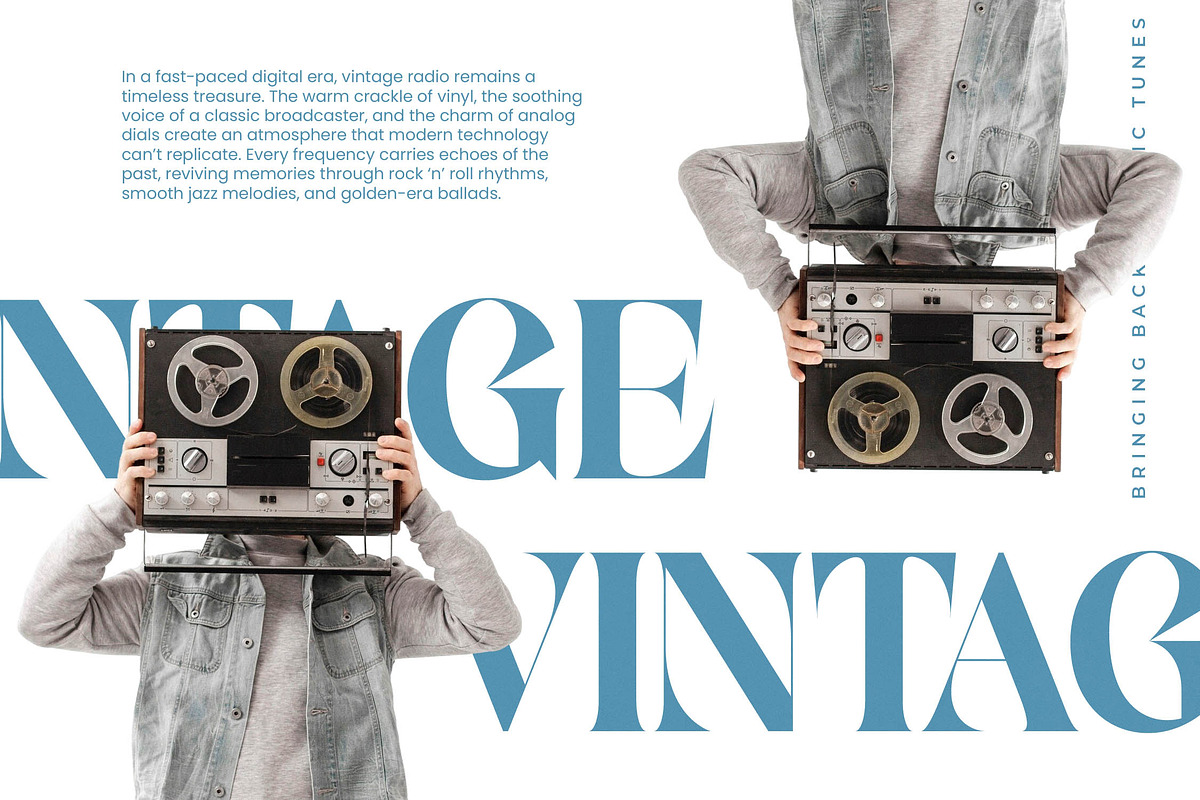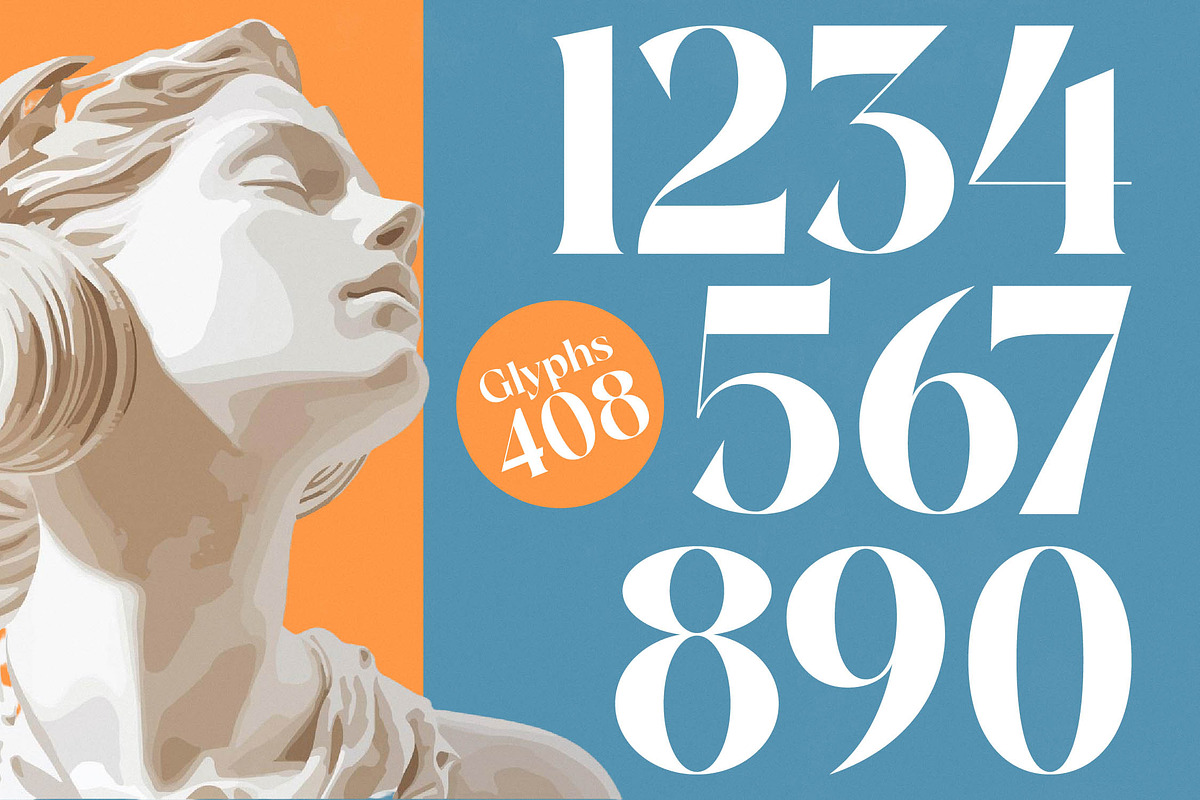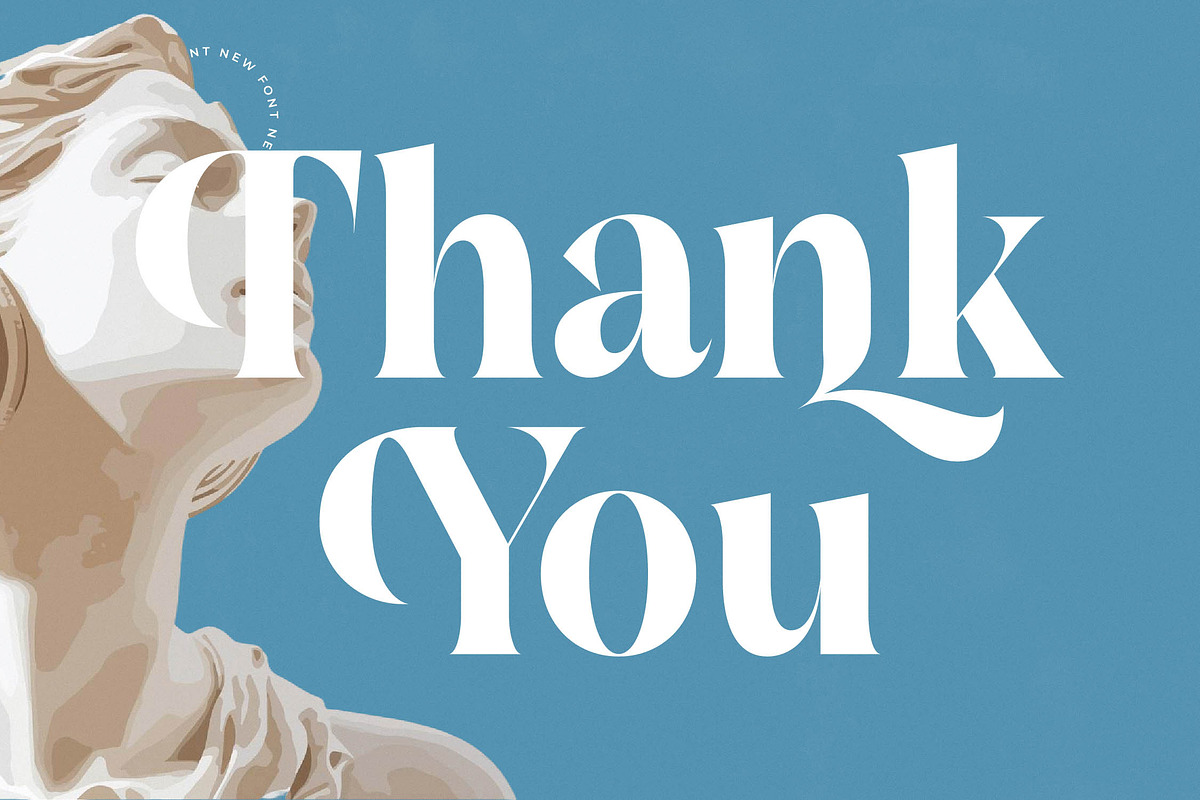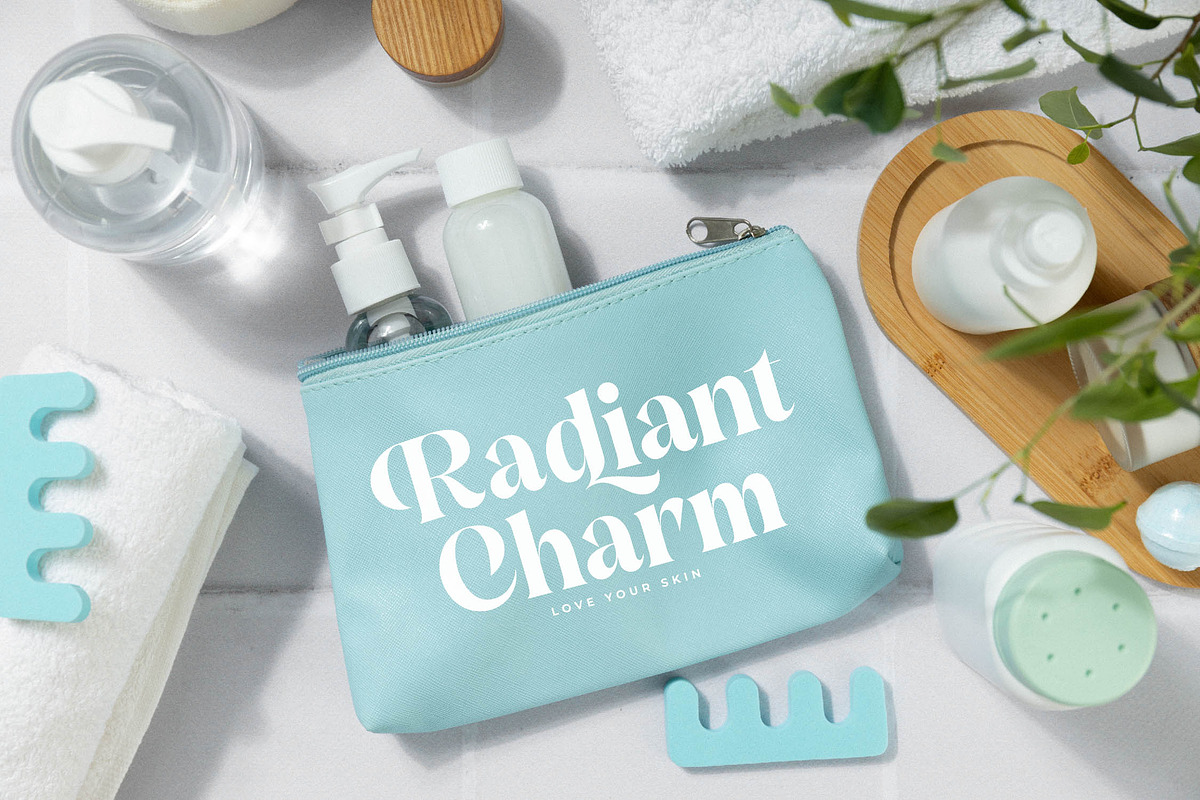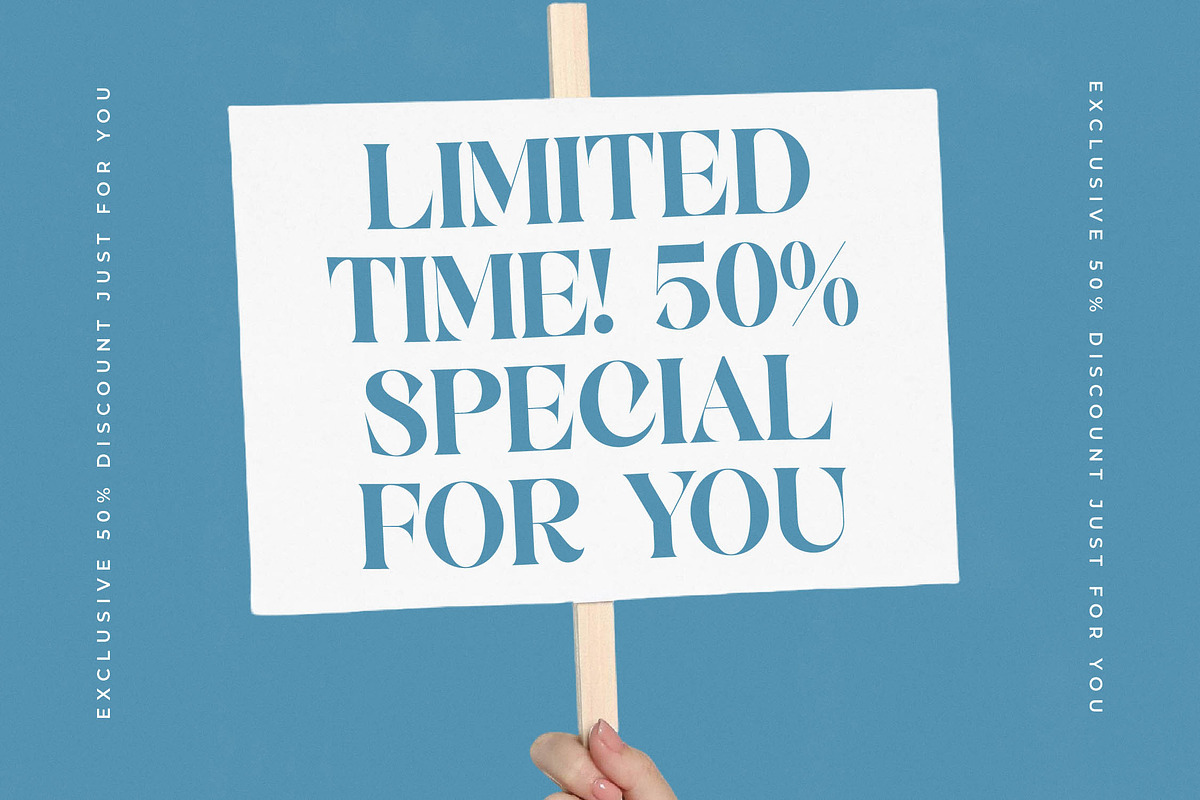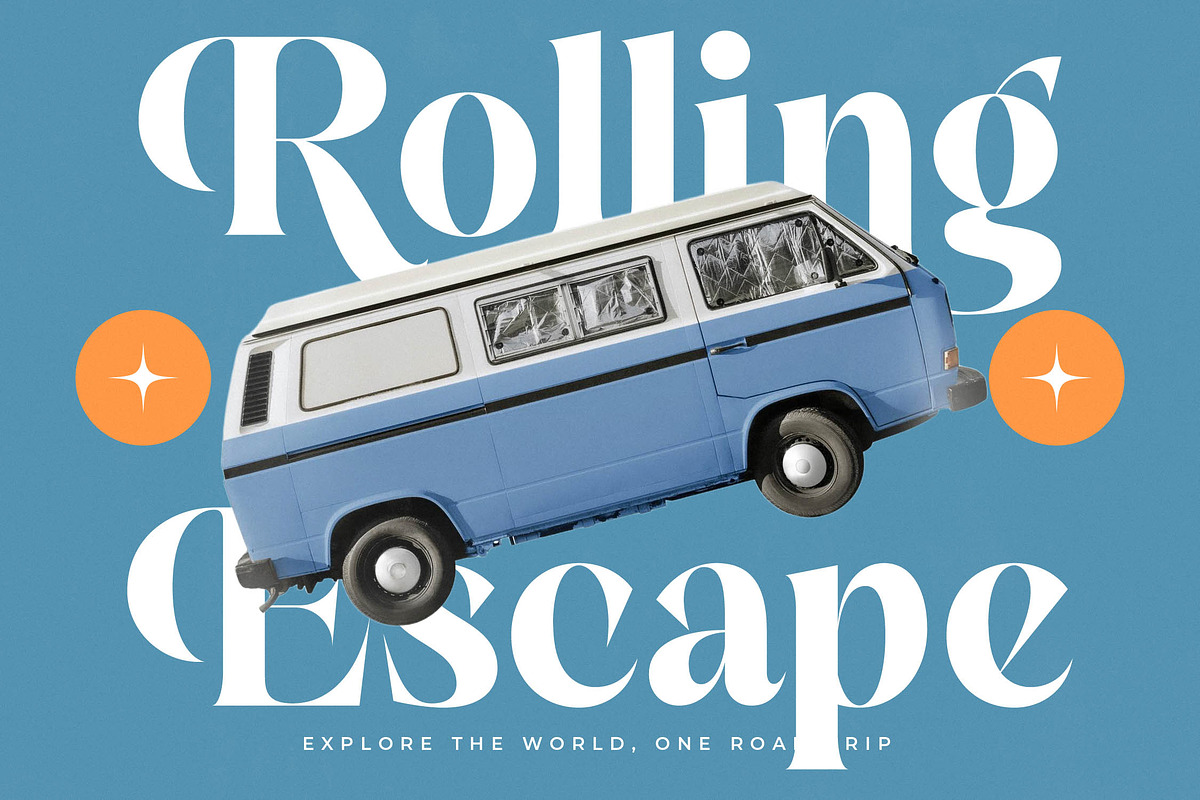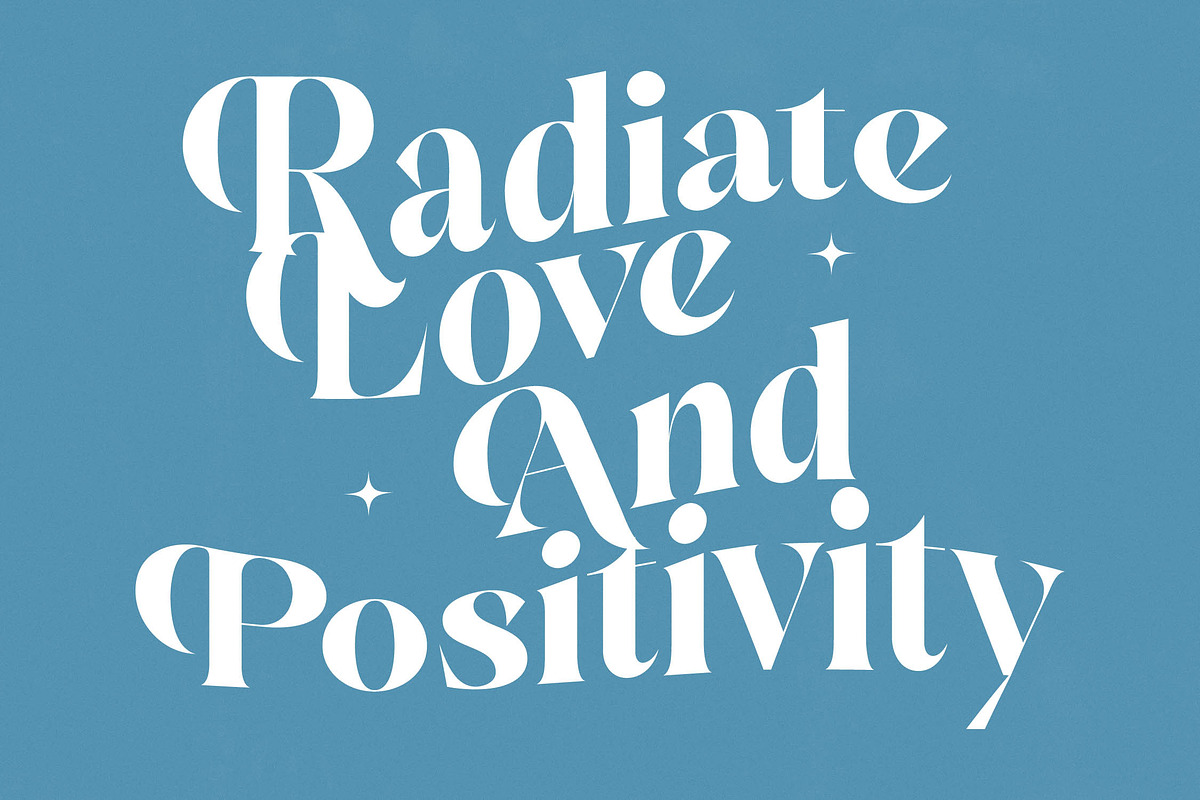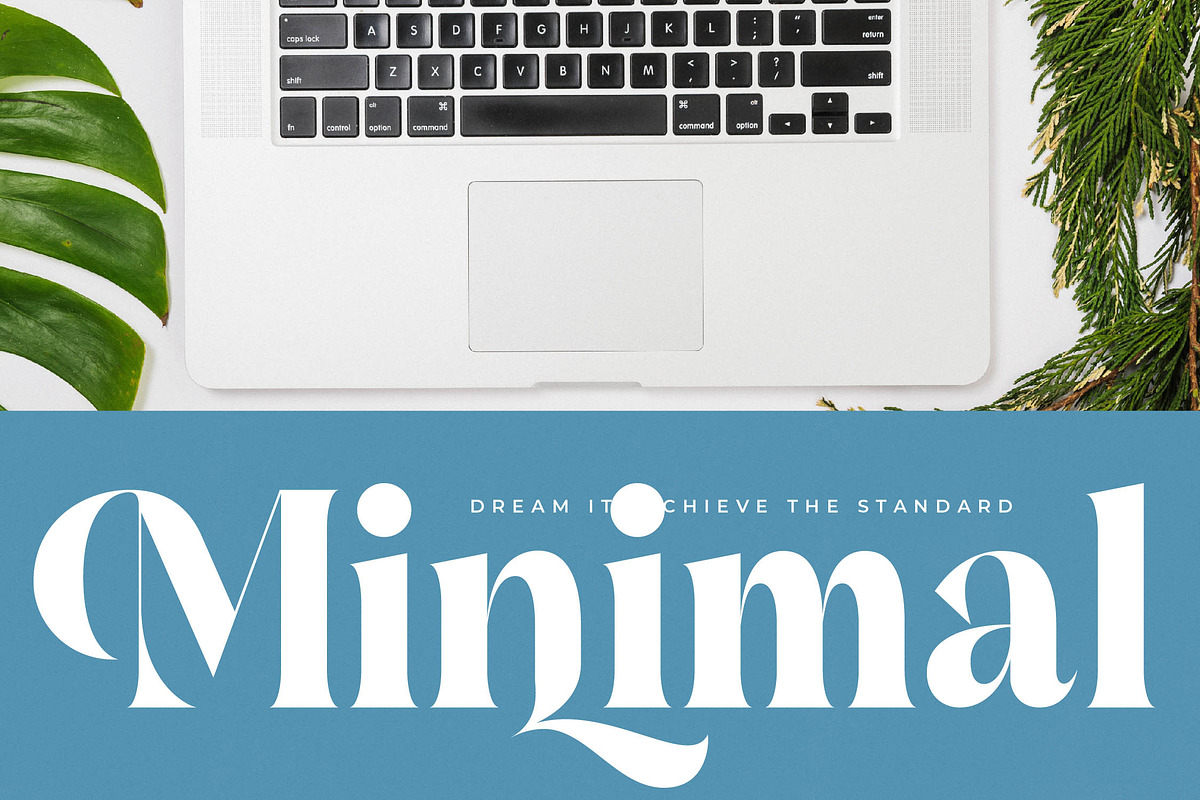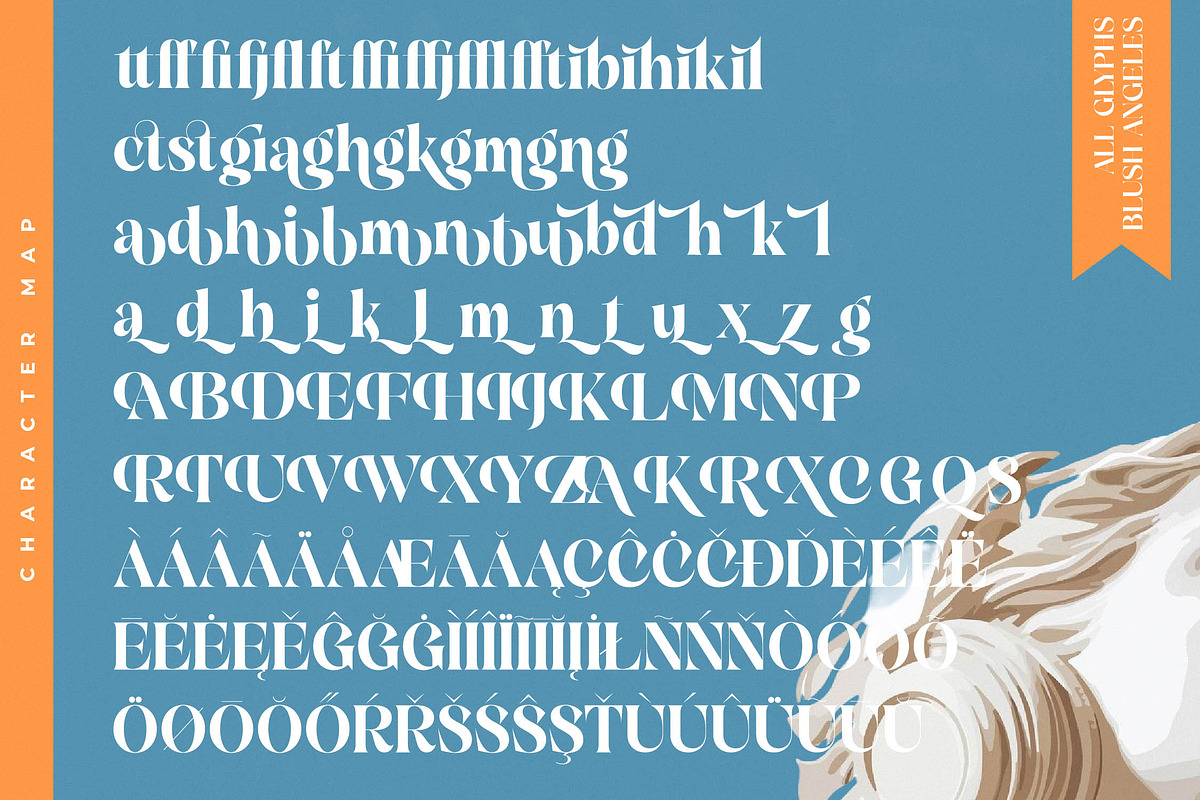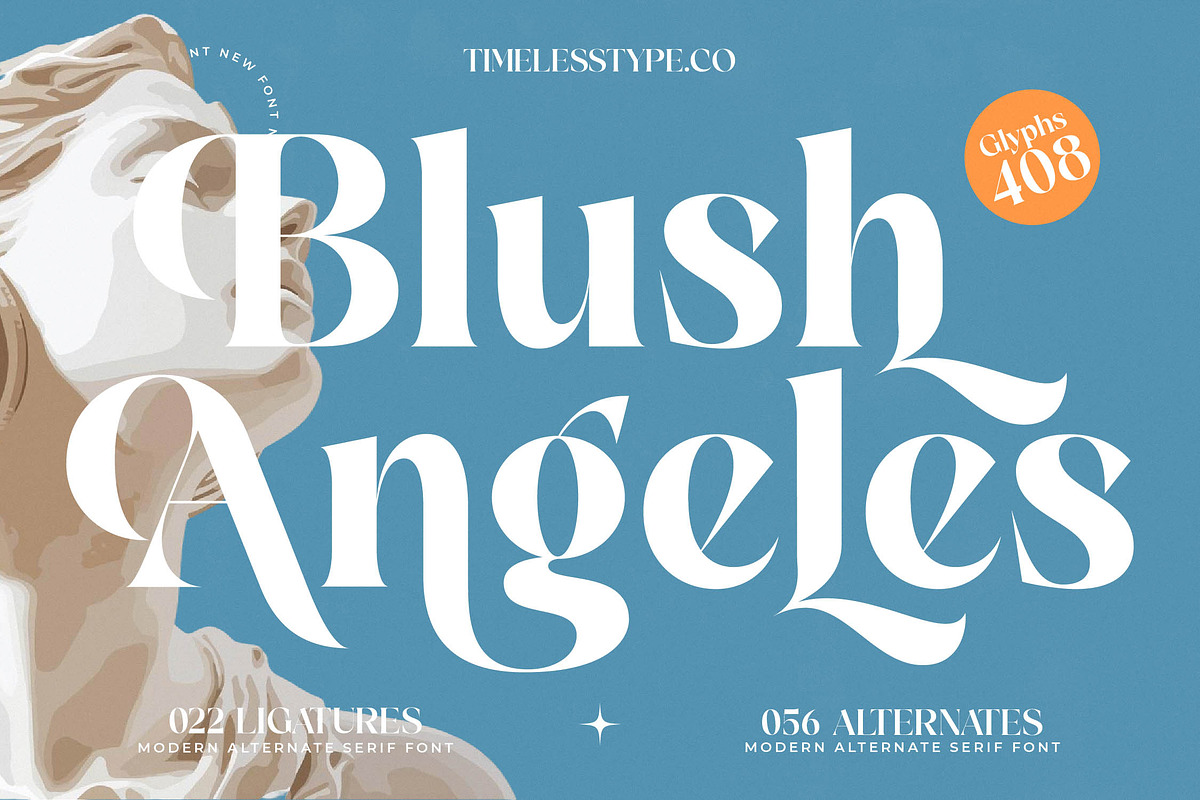
Blush Angeles Modern Serif Font
Elevate your creative vision with the ethereal beauty of Blush Angeles, a font designed to command attention with silent grace. This typeface strikes the perfect balance between classical proportions and contemporary flair, making it an essential tool for high-end design projects.
Drawing inspiration from the marble-carved elegance of neo-classical sculpture and the sun-drenched streets of Los Angeles, this font evokes a sense of timeless luxury. It captures a dreamlike atmosphere where old-world heritage meets the sharp, polished aesthetics of modern California fashion.
As a modern serif display, this typeface exudes a sophisticated confidence that is hard to ignore. The luxury typography is defined by its high-contrast serif details and slender terminals, creating a powerful branding impact while maintaining the legibility and rhythm of a premium editorial font.
Staying ahead of the modern serif trend, this collection offers the versatility needed for today's editorial display fonts. Designers looking for character-driven typography will find that this font bridges the gap between traditional serif structures and the experimental, flowing shapes currently dominating the fashion and lifestyle industries.
This versatile typeface is exceptionally well-suited for high-end logo design and comprehensive branding identity systems. Whether you are working on a luxury editorial layout, premium product packaging, sophisticated wedding stationery, or a chic fashion campaign, it delivers a polished and cohesive aesthetic.
The package is technically robust, featuring a rich library of ligatures and unique alternates that allow for custom typographic compositions. With extensive multilingual support and a full set of international characters, including delicate swashes, it ensures your message remains consistent across global markets.
- Ligature 022 Alternate 056